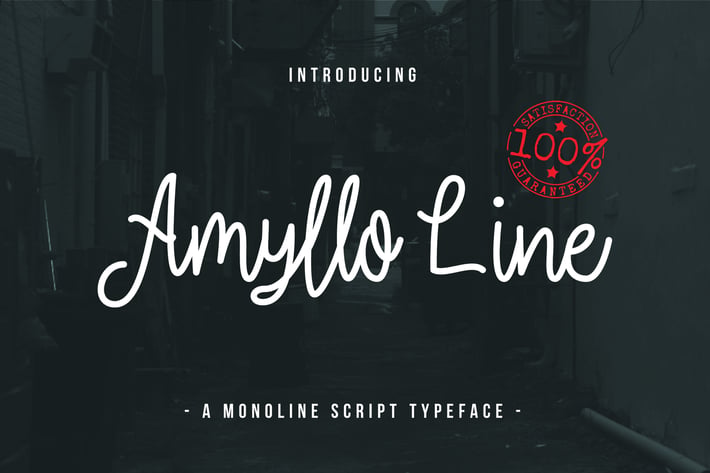
Amyllo Line - A Monoline Script Typeface
So beautiful on invitation like greeting cards, branding materials, business cards, quotes, posters, and more!